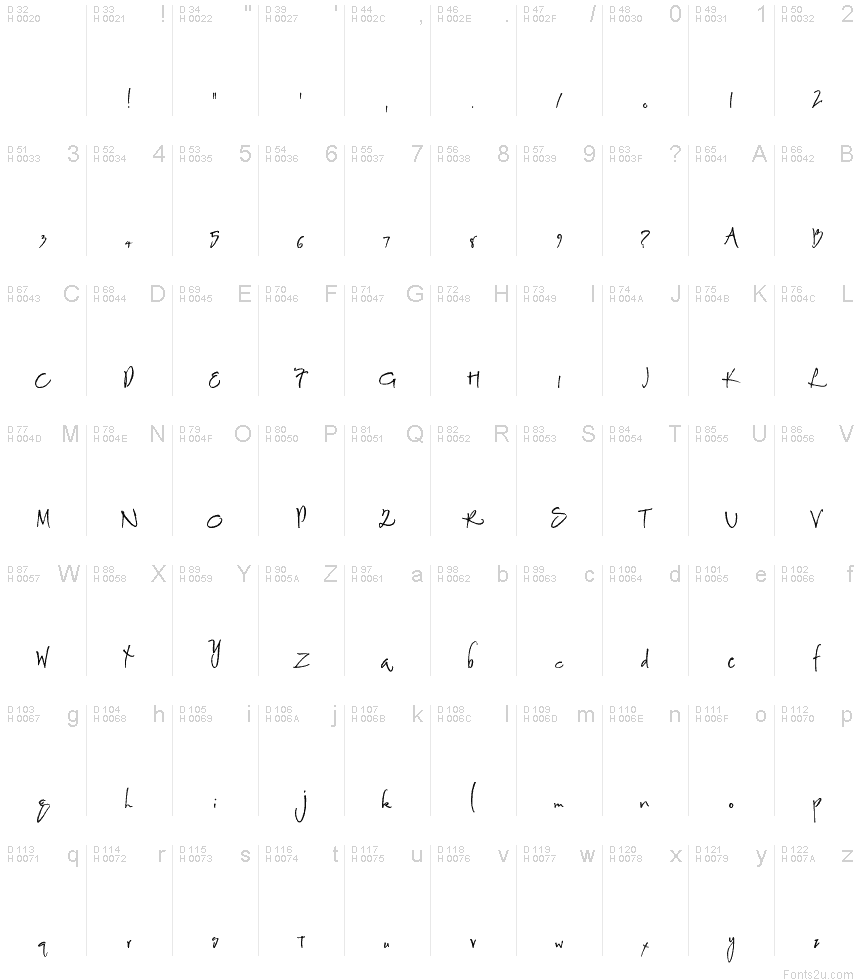
Hyrule is a free handwritten script with the quick motion of a felt-tip signature. Its strokes vary in width, and the letters sit close in lively, uneven spacing. Tall rising and falling strokes are its clearest visual feature.
Personal branding is its strongest use, particularly for a logo with an informal, human voice. The same brisk line suits fashion tags, music artwork, and event invitations. It fits projects about independent makers, performers, or personal stories.